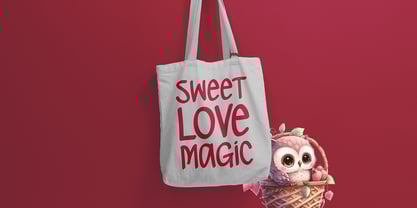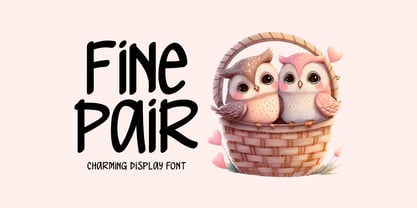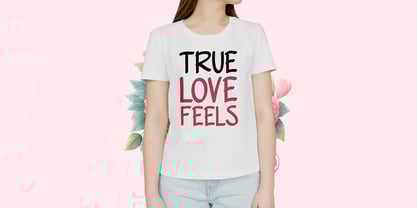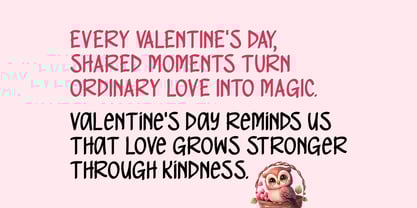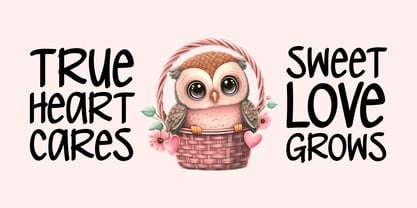
Fine Pair
by Seemly Fonts
The Fine Pair Font Family was designed by Md Shohail Bhuian and published by Seemly Fonts. Fine Pair contains 1 styles.
Fine Pair is an attractive display typeface with a warm and approachable style. Its versatile design works smoothly across both print and digital formats, making it ideal for logos, apparel, music covers, photo frames, social media visuals, and promotional layouts. With its simple yet expressive look, Fine Pair helps your message stand out clearly and beautifully.